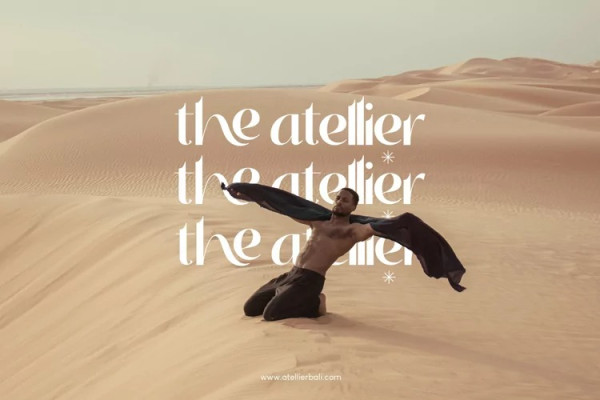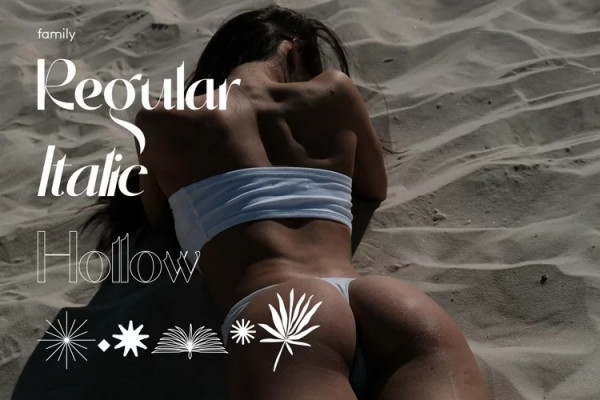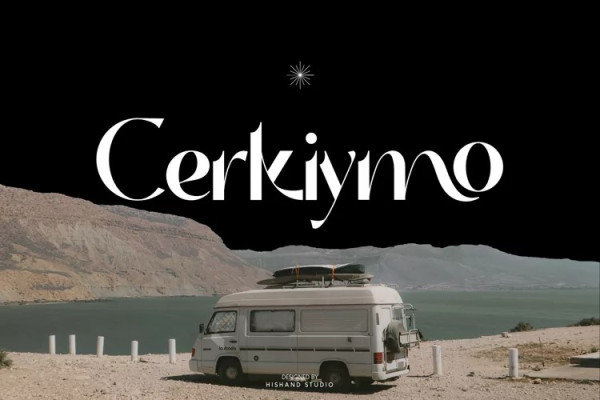
Cerkiymo Font
Cerkiymo Font, The strokes of the Cerkiymo font dance gracefully across the page, exuding an air of elegance and freshness. With its delicate curves and refined lines, the Cerkiymofont lends an elegant touch to any design, breathing a fresh sense of sophistication into each word. Perfect for logos, branding, invitations, stationery, wedding designs, social media posts, and much more.